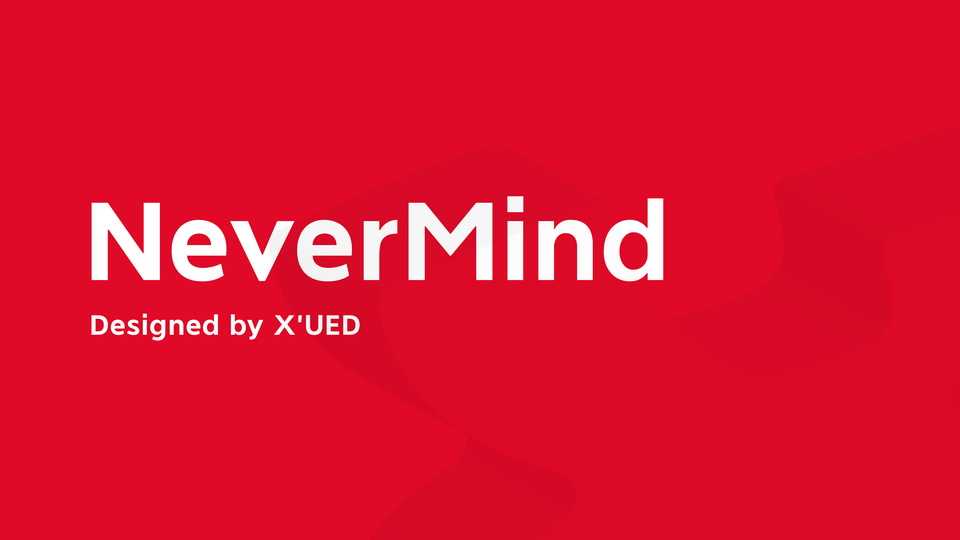
Download NeverMind typeface, a geometric and humanist sans serif font family, modern and friendly, that can be used for all types of communication.
Designer: XMind Ltd.